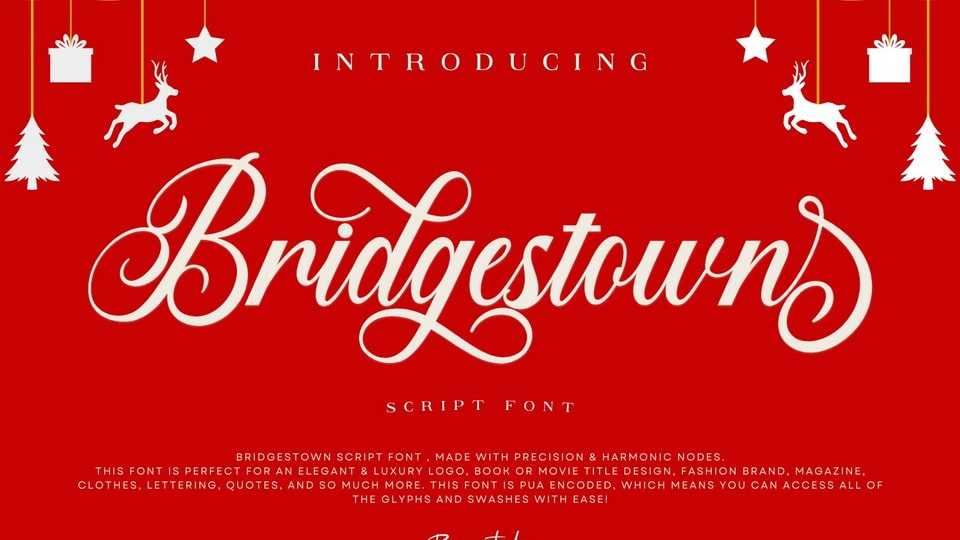
Download Bridgestown font, an elegant and charming modern calligraphy typeface made with precision and harmonic style, perfect for an elegant and luxury logo.